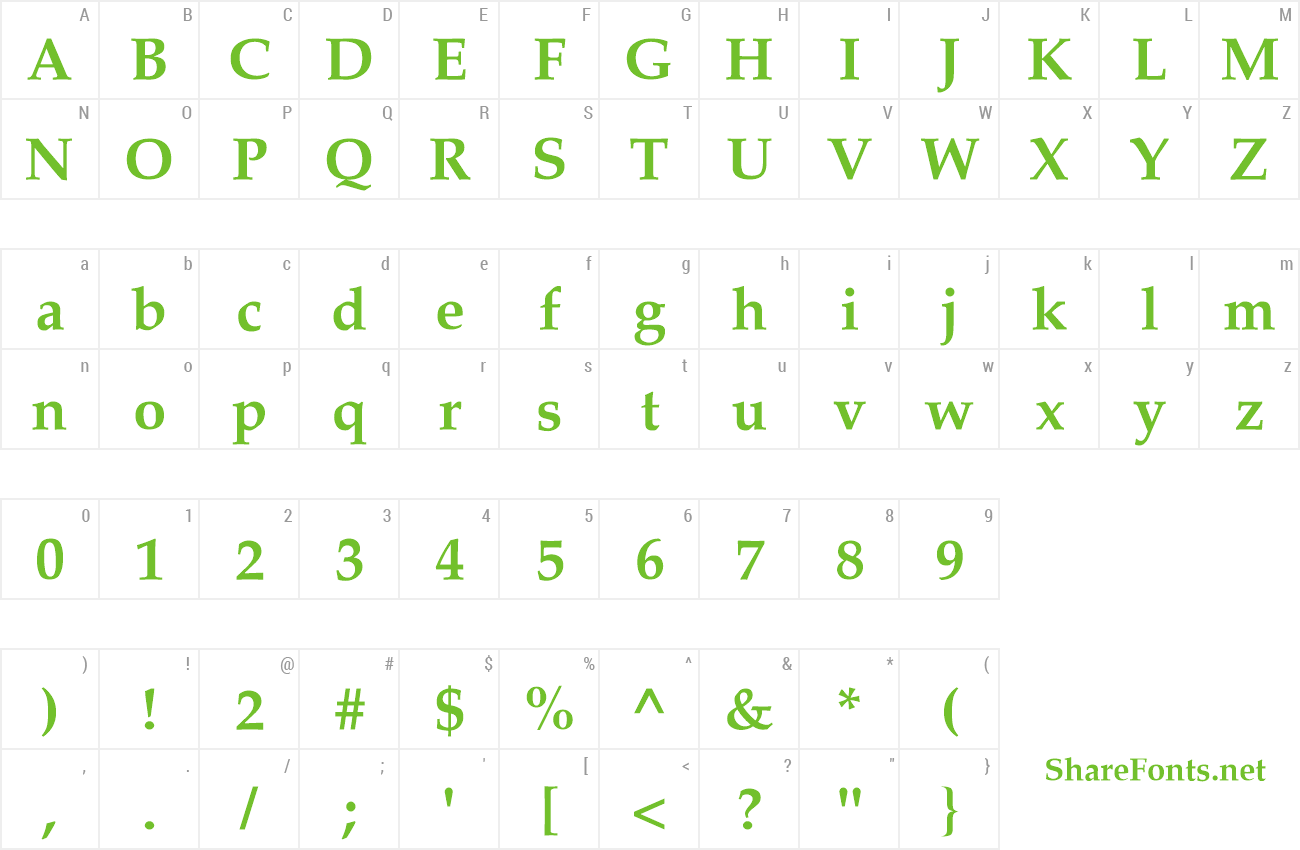
Palatino Bold Font
Palatino Bold Font - It has become a modern classic in itself, and is popular. Web palatino is a typeface based on classical italian renaissance forms.
Web palatino is a typeface based on classical italian renaissance forms. It has become a modern classic in itself, and is popular.
It has become a modern classic in itself, and is popular. Web palatino is a typeface based on classical italian renaissance forms.
Web palatino is a typeface based on classical italian renaissance forms. It has become a modern classic in itself, and is popular.
It has become a modern classic in itself, and is popular. Web palatino is a typeface based on classical italian renaissance forms.
Web palatino is a typeface based on classical italian renaissance forms. It has become a modern classic in itself, and is popular.
It has become a modern classic in itself, and is popular. Web palatino is a typeface based on classical italian renaissance forms.
Web palatino is a typeface based on classical italian renaissance forms. It has become a modern classic in itself, and is popular.
It has become a modern classic in itself, and is popular. Web palatino is a typeface based on classical italian renaissance forms.
It Has Become A Modern Classic In Itself, And Is Popular.
Web palatino is a typeface based on classical italian renaissance forms.